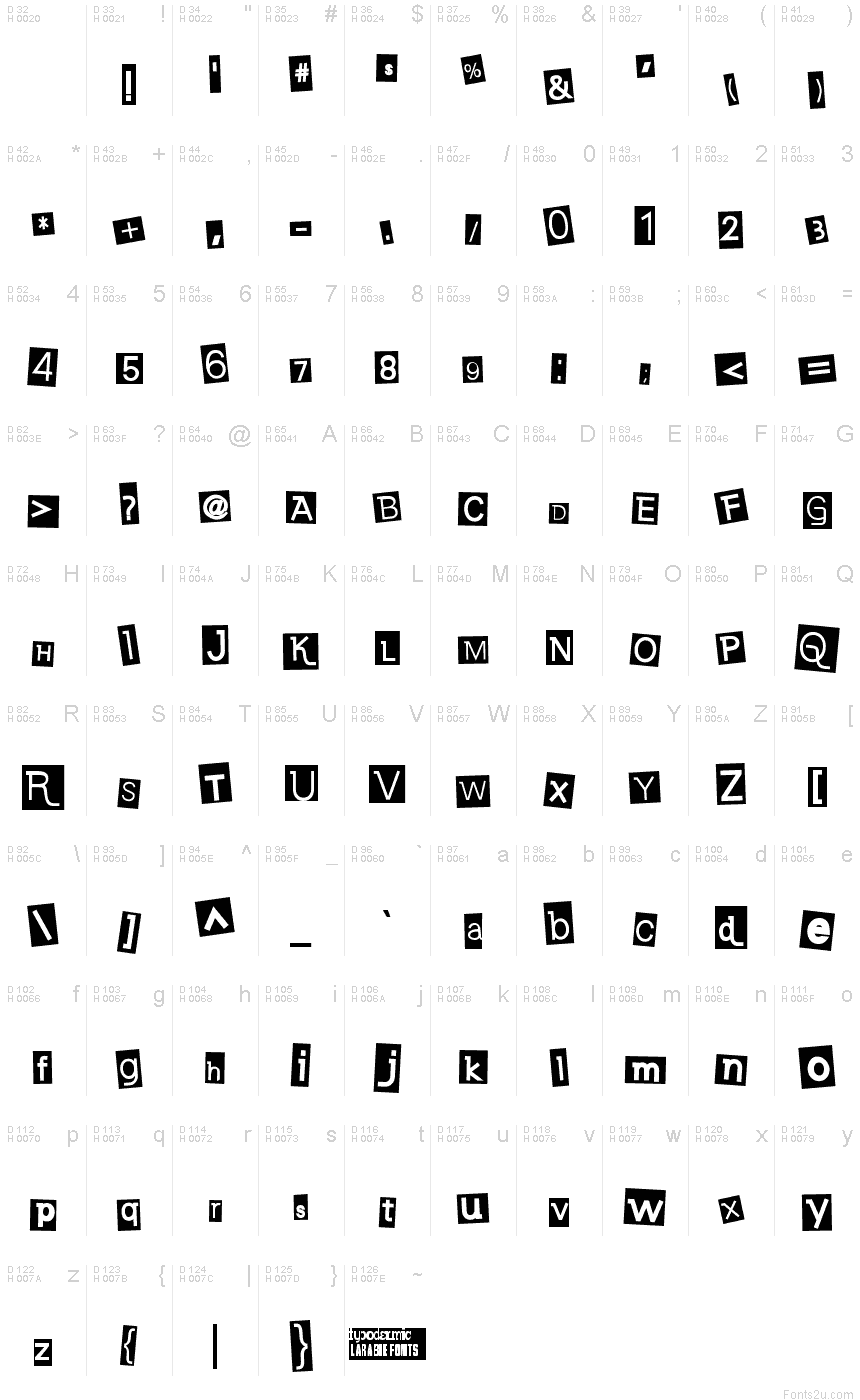
Earwig Factory
Earwig Factory font by Ray Larabie is a free decorative display font. Each letter sits inside its own inky black tile, tilted and jostled as if cut from a stack of photocopied flyers. The white letterforms feel loud and handmade, with a jittery rhythm that instantly suggests mischief, mystery, or a slightly creepy sense of fun.
Using Earwig Factory, headlines snap to attention on Halloween posters, punk or garage band flyers, zines, game titles, YouTube thumbnails, and spooky party invitations. This free font works best big and bold, where the uneven tiles can overlap and create a messy-collage texture. Pair it with a simple sans serif for body copy to keep things readable while Earwig Factory handles the noisy, chaotic energy up top.